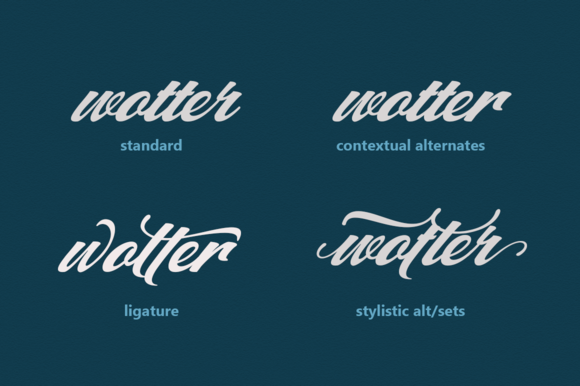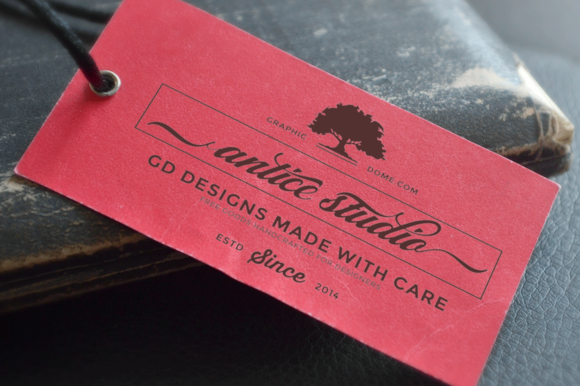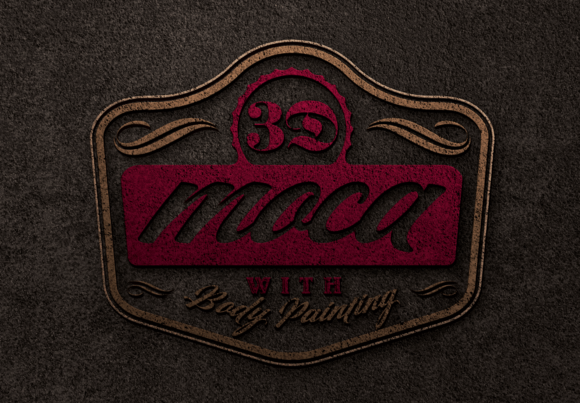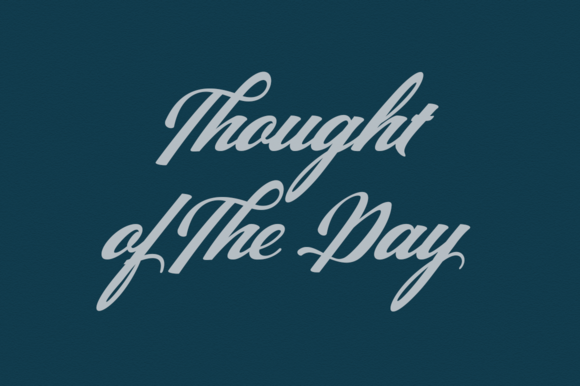
Matador Font
About Matador Font
Matador is a bold hand-painted font.
The Matador font has been created by Groens Studio and is created with a thick marker. The font has been digitized and optimized to offer smooth letters that are easy to read and pleasant on the eyes.